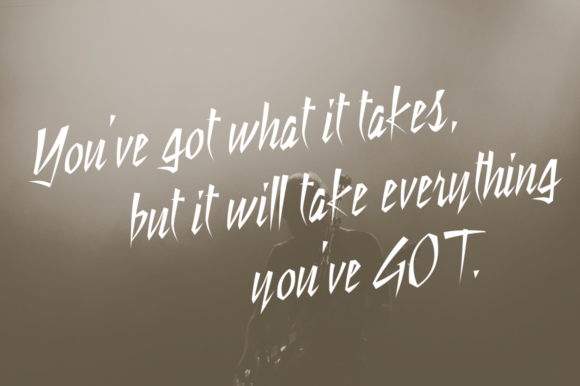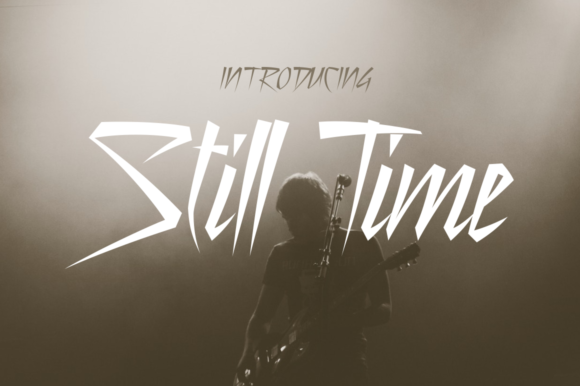
Still Time
About Still Time Font
Give your designs a lot of edge and style with Still Time, a stunning handwritten free font! Get this freebie font now, offered by the talent at Typodermic.